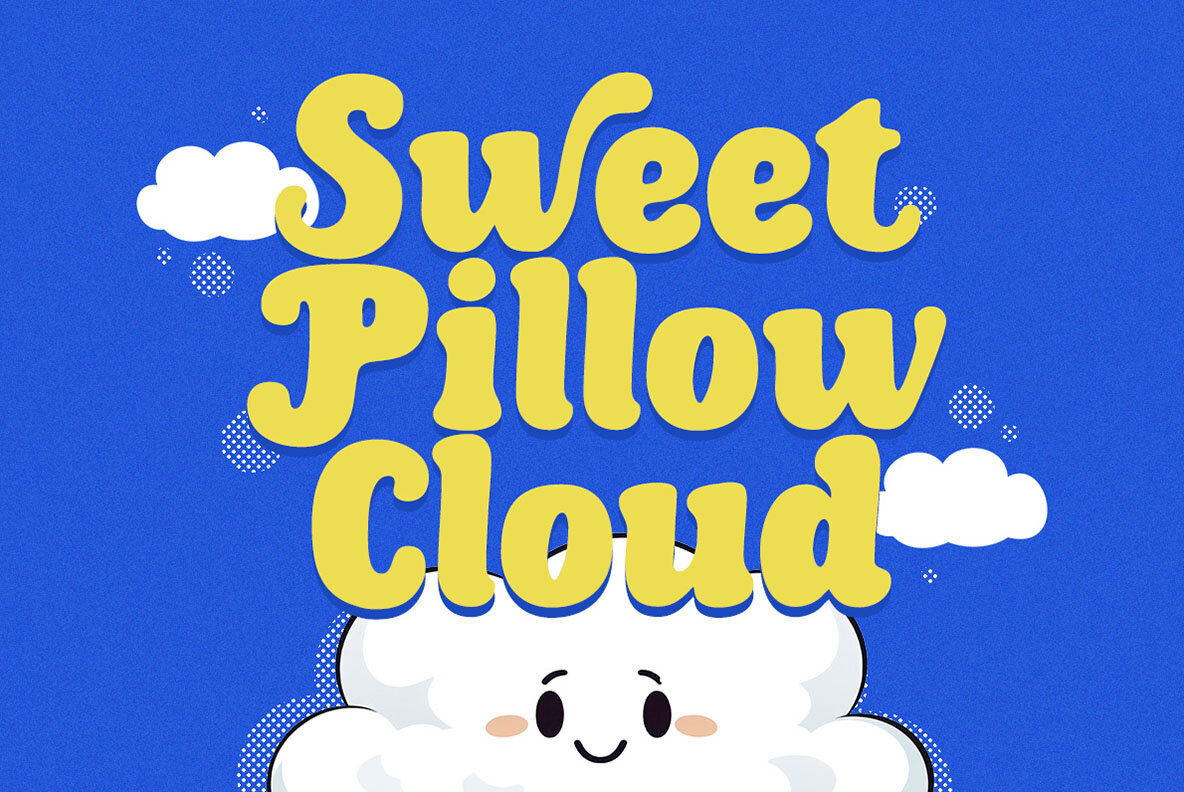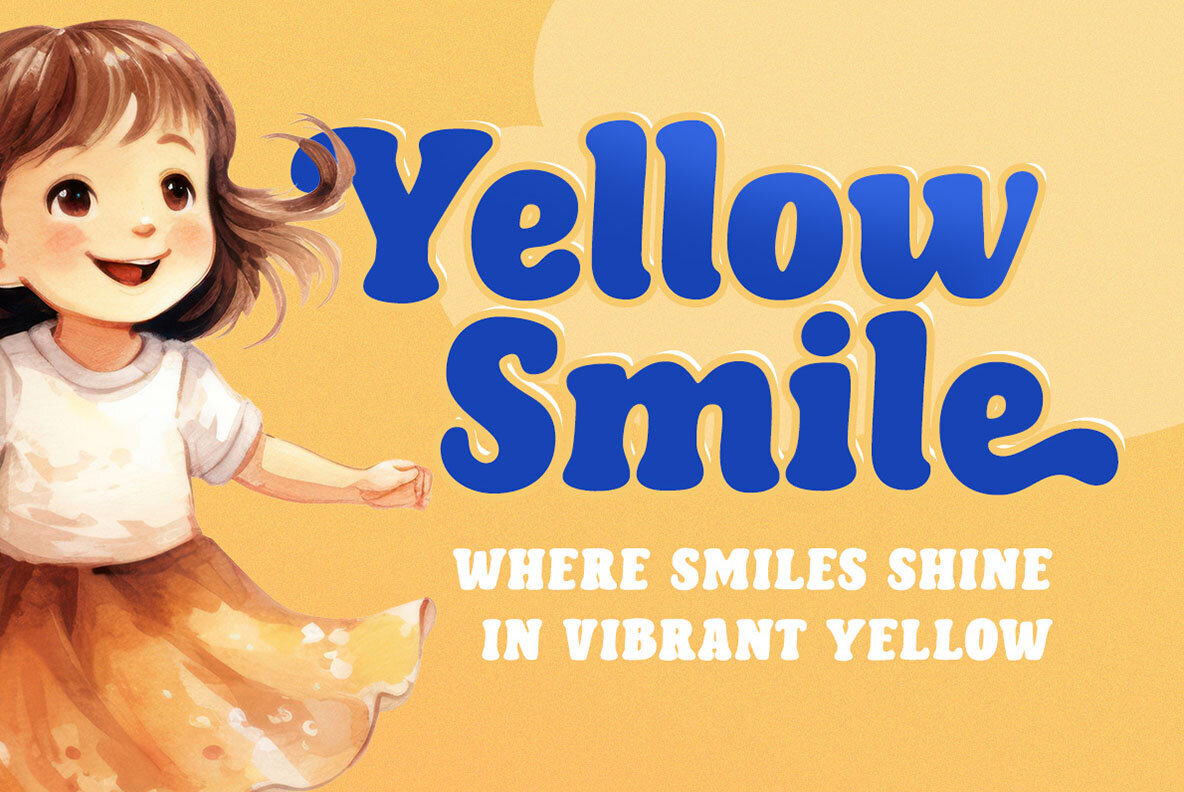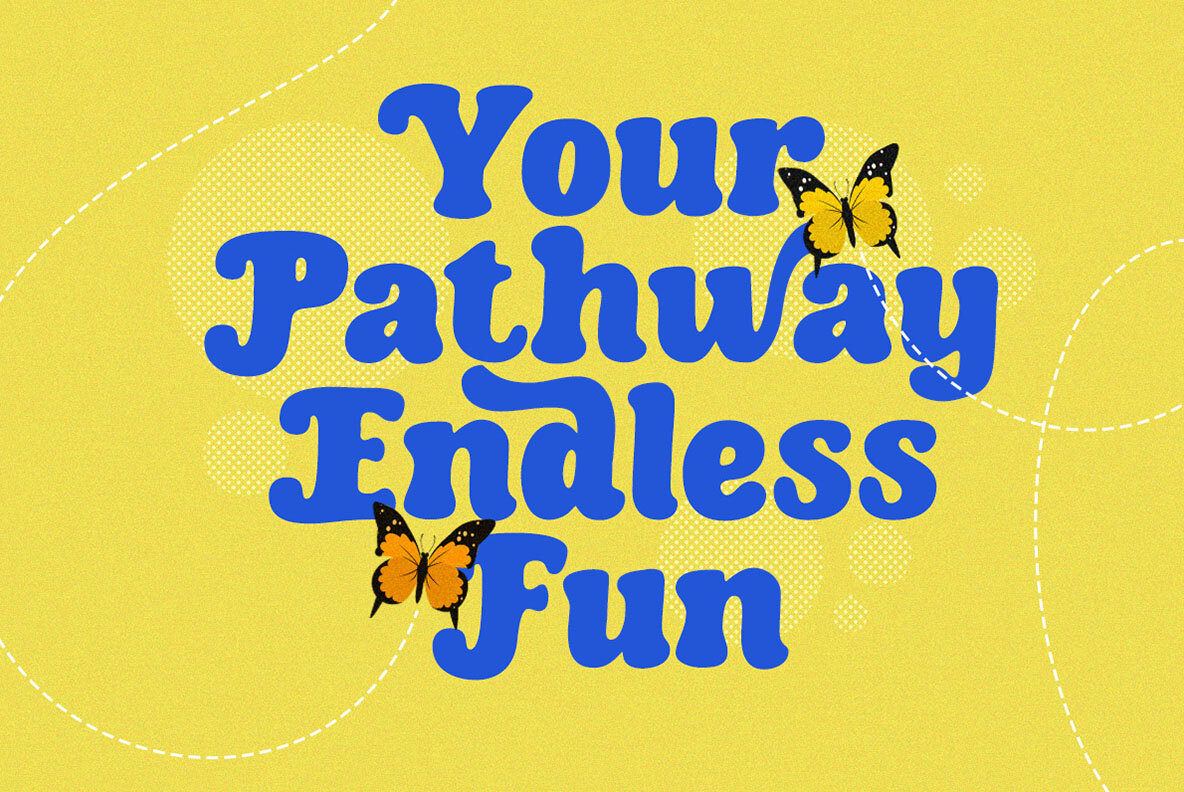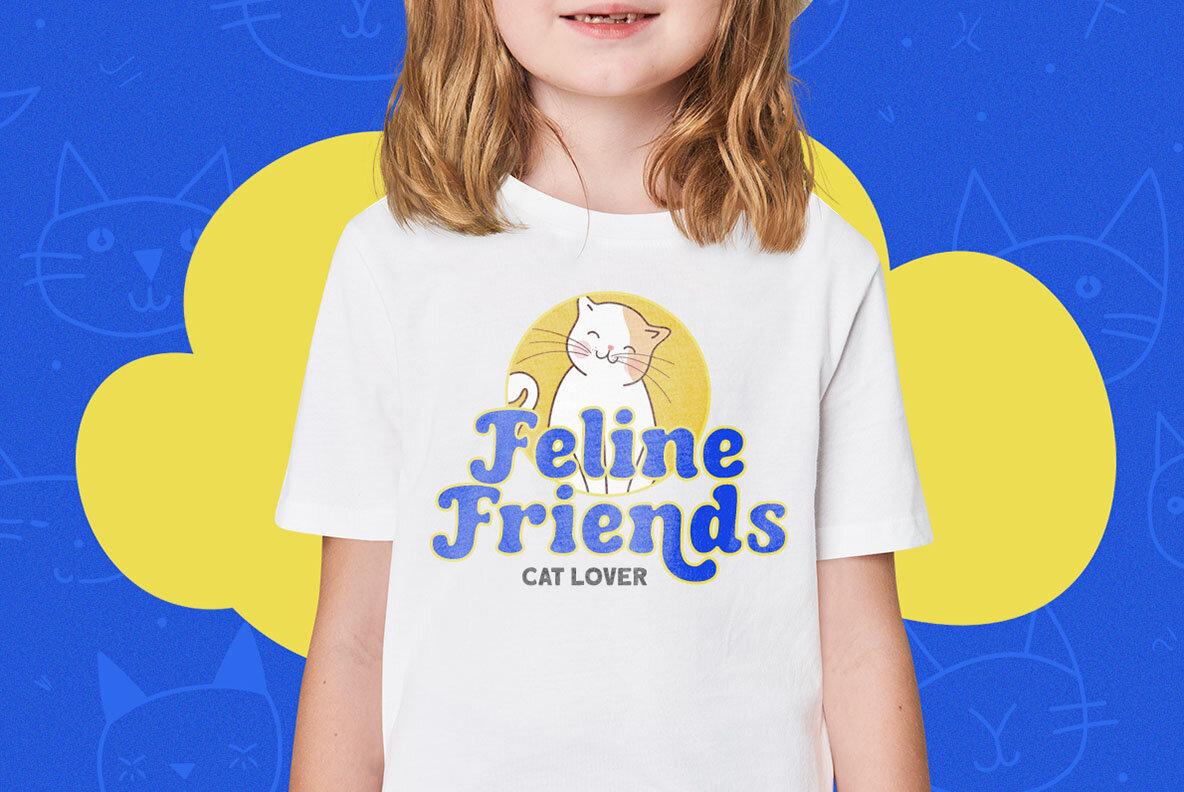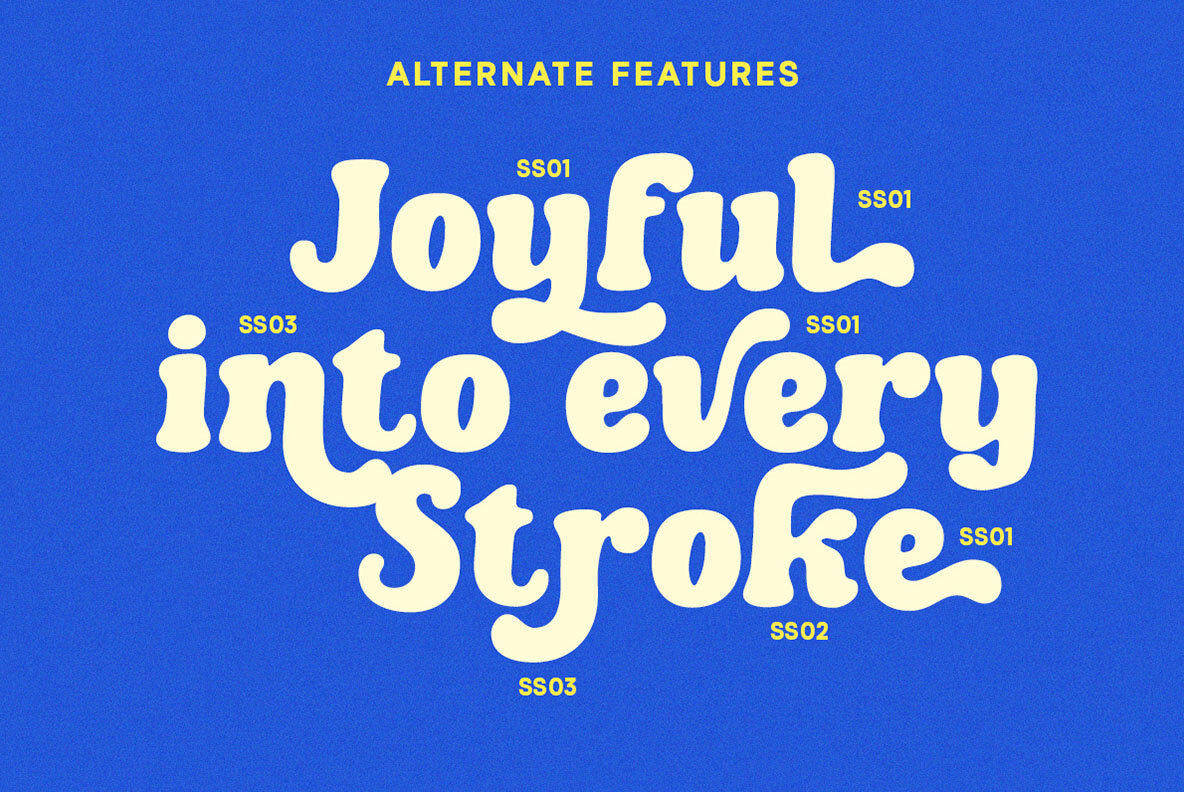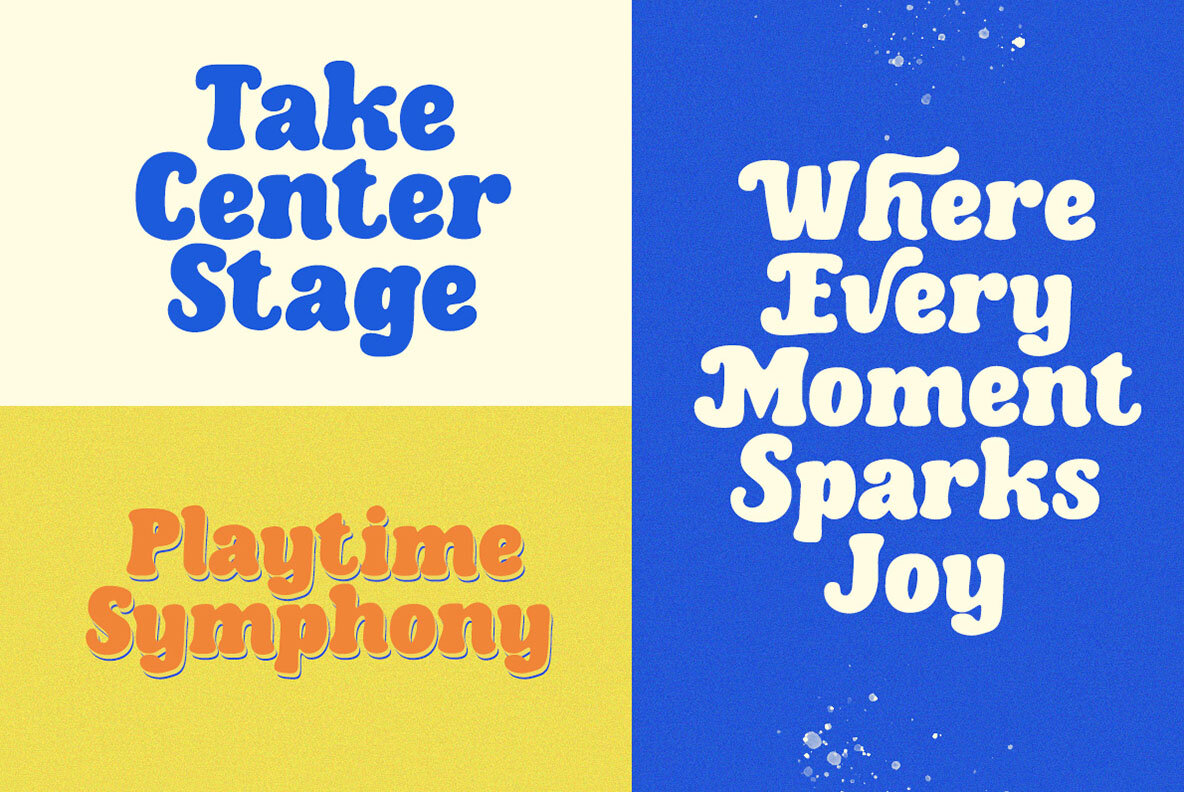
Lovie Cloud Font
Lovie Cloud Regular
Lovie Cloud is a dynamic display font characterized by its bold letterform, offering users the flexibility to experiment with alternate characters. Ideal for logos and a wide range of formal applications, it seamlessly integrates into designs for invitations, labels, magazines, books, greeting cards, packaging, fashion, makeup, stationery, and advertisements. For a comprehensive utilization of its features, we recommend using software that supports OpenType features and Glyph panels such as Adobe applications and Corel Draw, enabling full access to all Glyph variations.Lovie Cloud: A Versatile Display Font